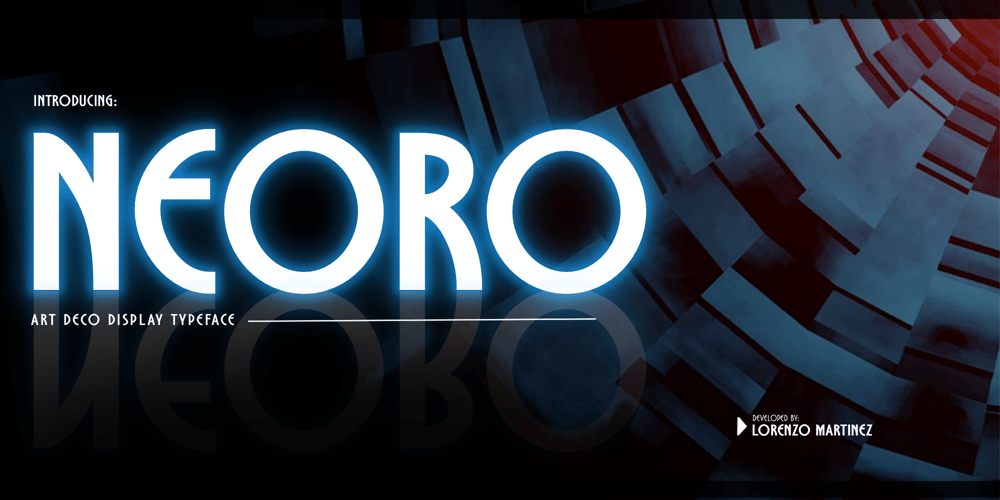
Neoro Font Family was designed by Lorenzo Gabriel Martinez and published by Lurinzu Studios. Neoro contains 2 styles and family package options. Neoro is an Art Deco condensed display typeface with an emphasis on its legibility to work as a “workhorse” typeface.Neoro is developed with the intention to be used in almost all media and sizes. By combining the characteristics of an Art deco type with an emphasis with it’s legibility, this typeface is versatile in almost all medias you can think of!Magazines, body text, captions, headlines, display, albums and almost any media you can think of!*This font includes letters, numbers, multi-language, and all essential marks needed.